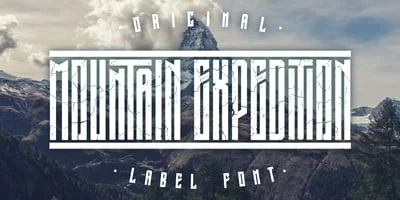
Expedition Font
Expedition Font is ruggedly designed for adventure travel branding, mountain climbing gear advertising, wilderness survival guides, outdoor equipment packaging, national geographic publications, extreme sports campaigns, exploration documentary materials, and pioneering adventure communications. This robust typeface excels in environments requiring expedition authenticity and outdoor durability, making it perfect for adventure travel companies, outdoor gear manufacturers, expedition organizers, and any business needing to communicate wilderness expertise and exploration courage through distinctive typography.
What makes Expedition Font so exciting is its authentic capture of wilderness adventure and expedition resilience that instantly communicates the determination and rugged spirit required for serious outdoor exploration and challenging wilderness adventures. The font features boldly constructed letterforms with expedition-tested proportions and survival-inspired details that reflect the harsh conditions of remote expeditions and the unwavering determination of professional adventurers. Its rugged construction and expedition character make it incredibly effective for brands wanting to communicate reliability, endurance, and wilderness expertise while appealing to serious outdoor enthusiasts and professional expedition teams.
Expedition Font typically includes multiple weights and styles such as Light, Regular, Bold, and Heavy, often accompanied by weathered variants optimized for extreme outdoor applications. The font family frequently features additional character sets including survival symbols, expedition icons, and wilderness glyphs that enhance its adventure appeal. Each weight maintains the font's distinctive rugged character while offering different levels of expedition emphasis, providing designers with comprehensive tools for creating authentic adventure brand identities and wilderness-focused communication materials.
Outdoor industry professionals will find that Expedition Font delivers outstanding performance in both traditional expedition applications and contemporary adventure marketing materials requiring wilderness credibility. The font's carefully engineered character set includes expedition-appropriate letterforms, survival symbols, and adventure elements essential for outdoor gear branding, expedition planning materials, and wilderness education communications. Its durable design makes it particularly effective for mountaineering companies, survival gear manufacturers, adventure tour operators, and expedition-oriented marketing campaigns requiring authentic wilderness presence.
The strategic attention to expedition proportions and wilderness spacing ensures that Expedition Font maintains excellent readability while delivering maximum adventure impact across challenging outdoor conditions. Its survival-inspired design language makes it particularly effective for extreme sports applications, wilderness education, expedition planning, and outdoor survival communications. The font's resilient appearance creates strong adventure credibility while remaining highly functional for projects requiring clear communication to serious outdoor enthusiasts and professional expedition communities.
For designers seeking a typeface that embodies expedition courage with wilderness authenticity, Expedition Font represents an exceptional choice that will strengthen any project with its distinctive durability and expedition character.